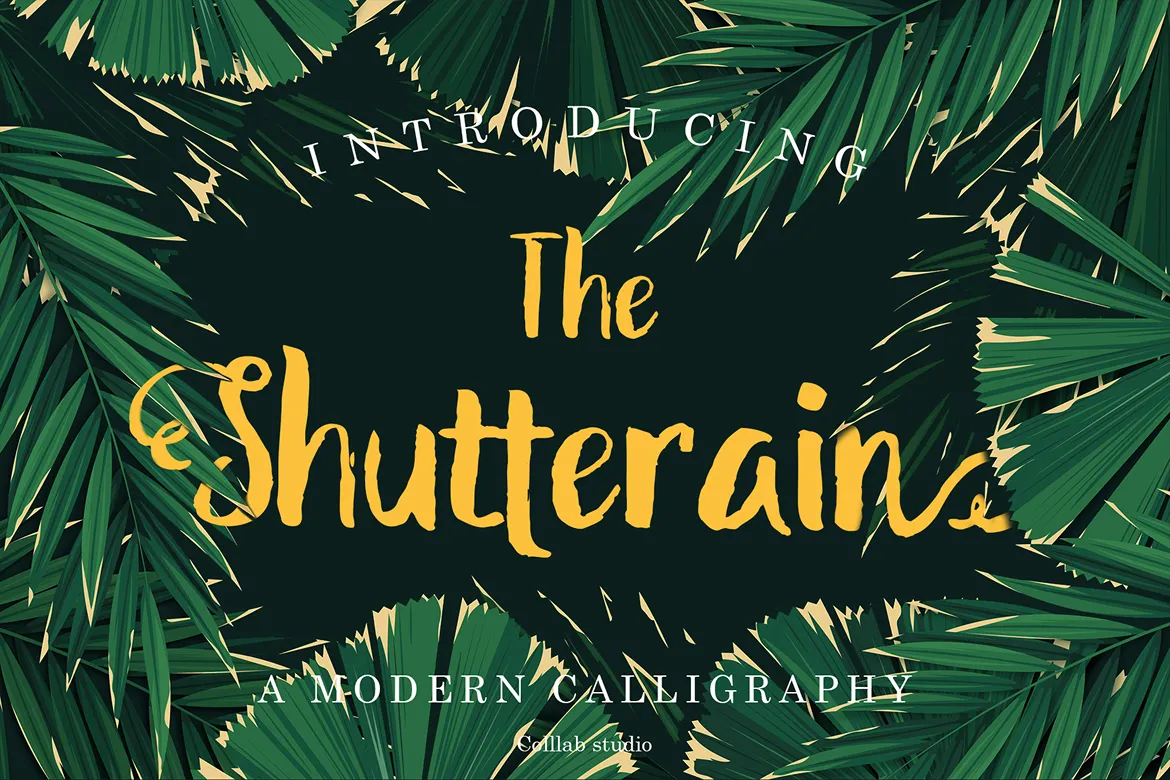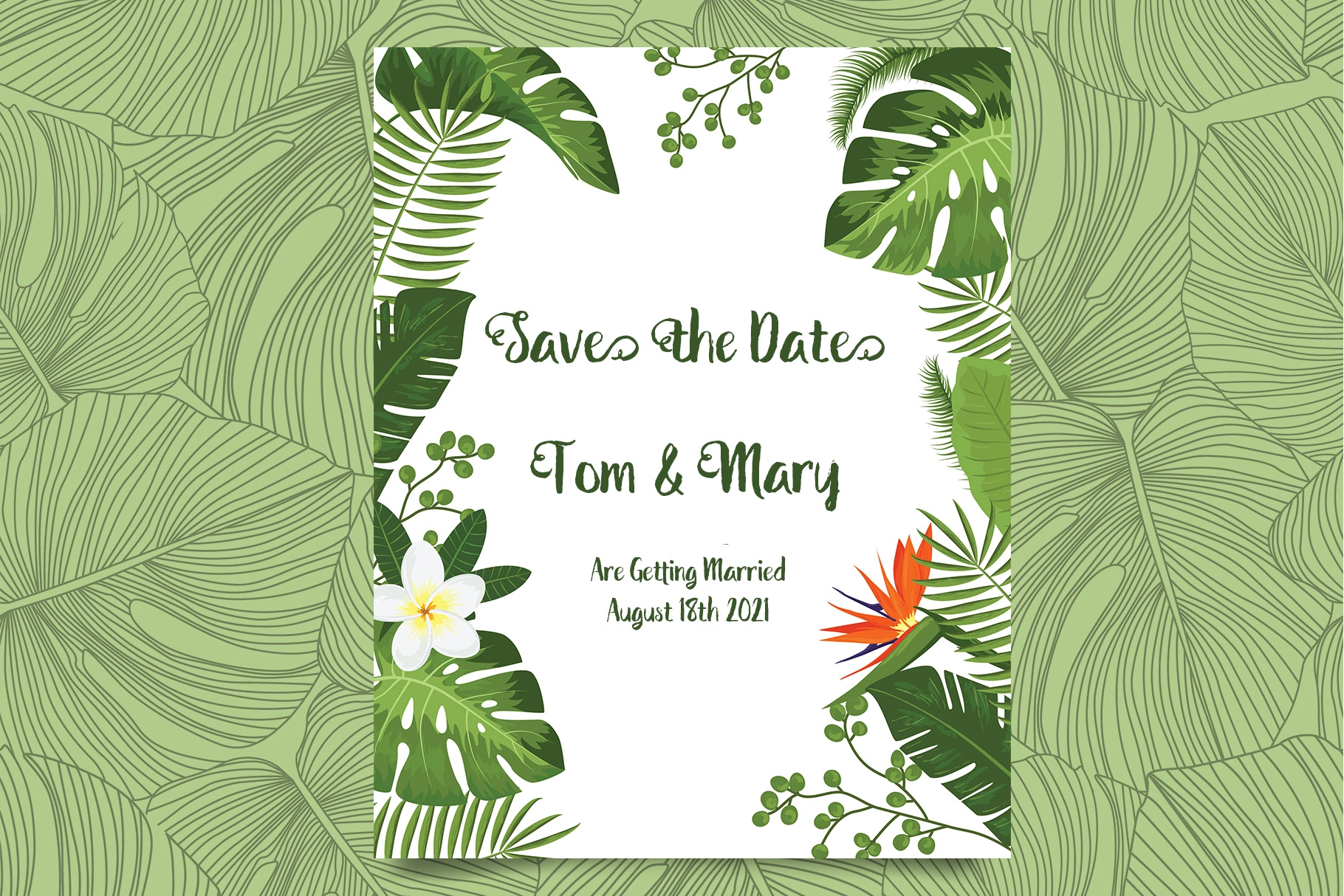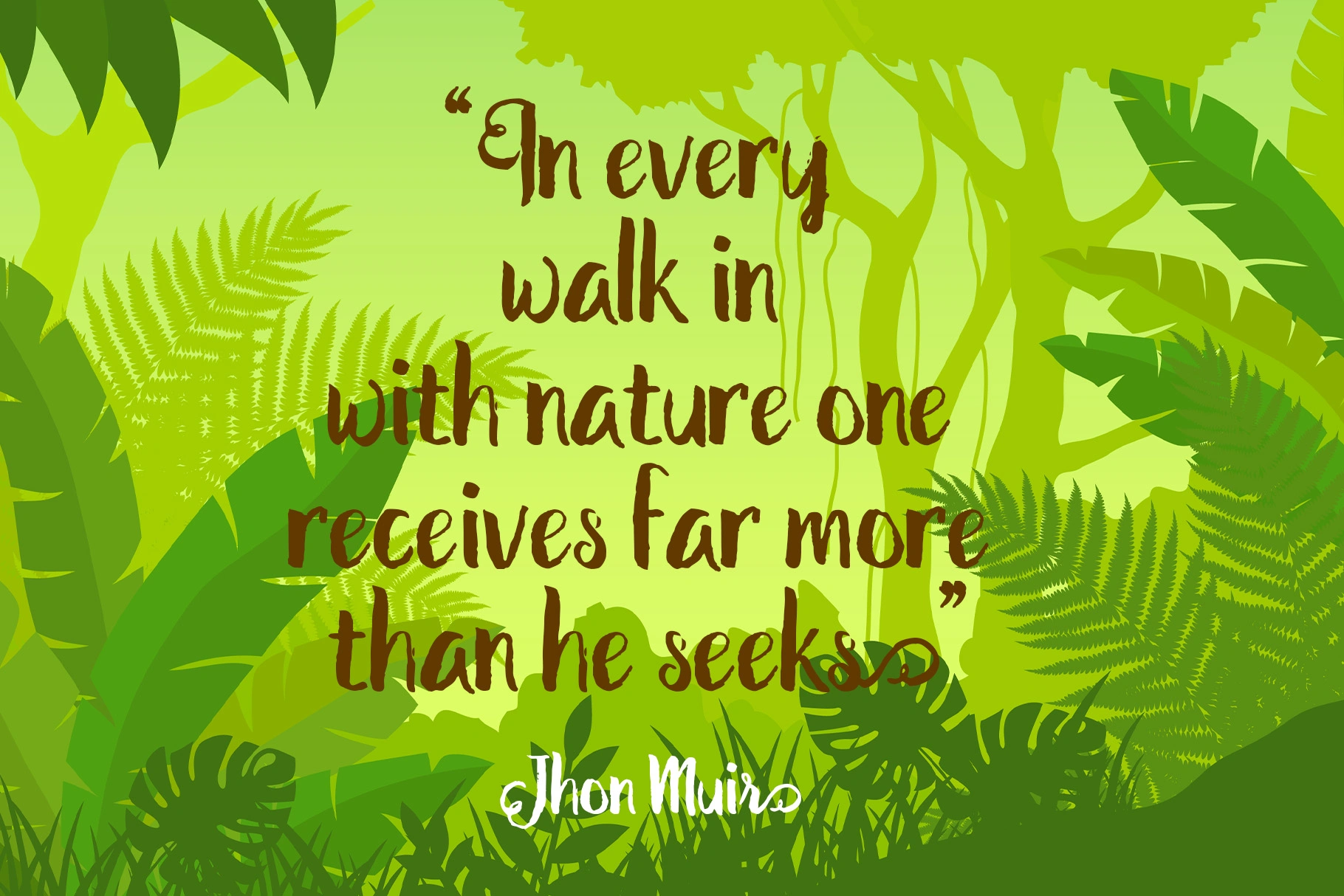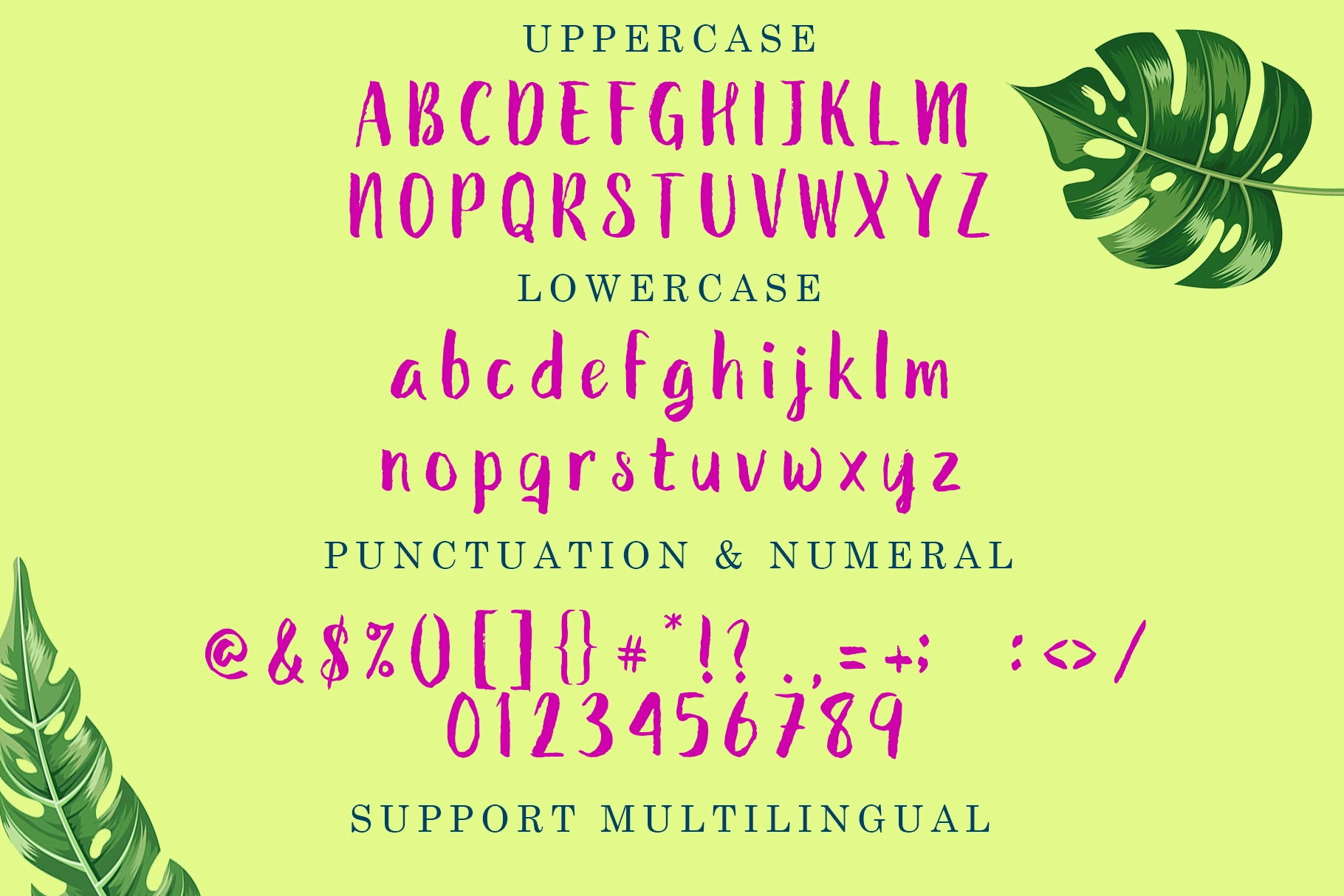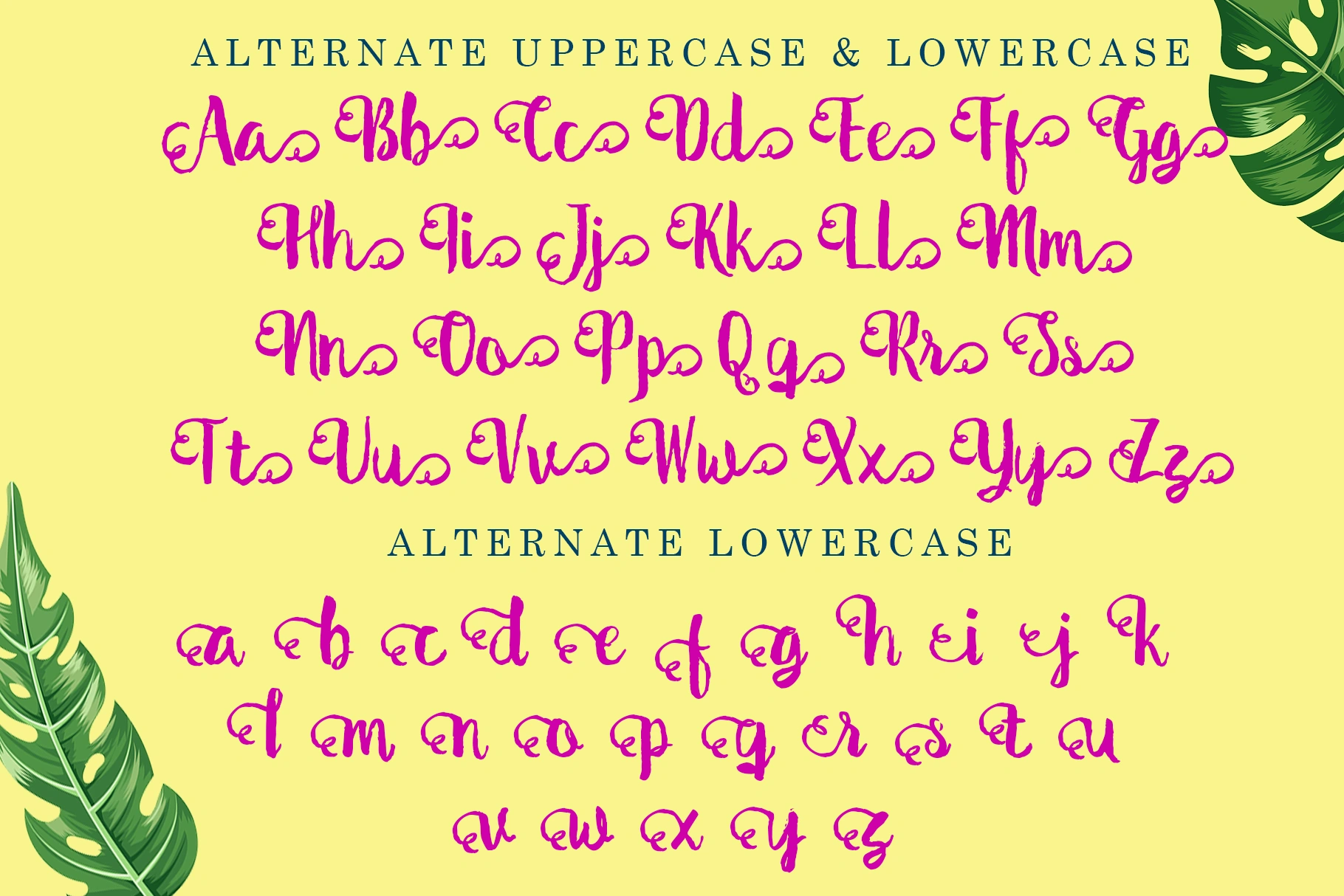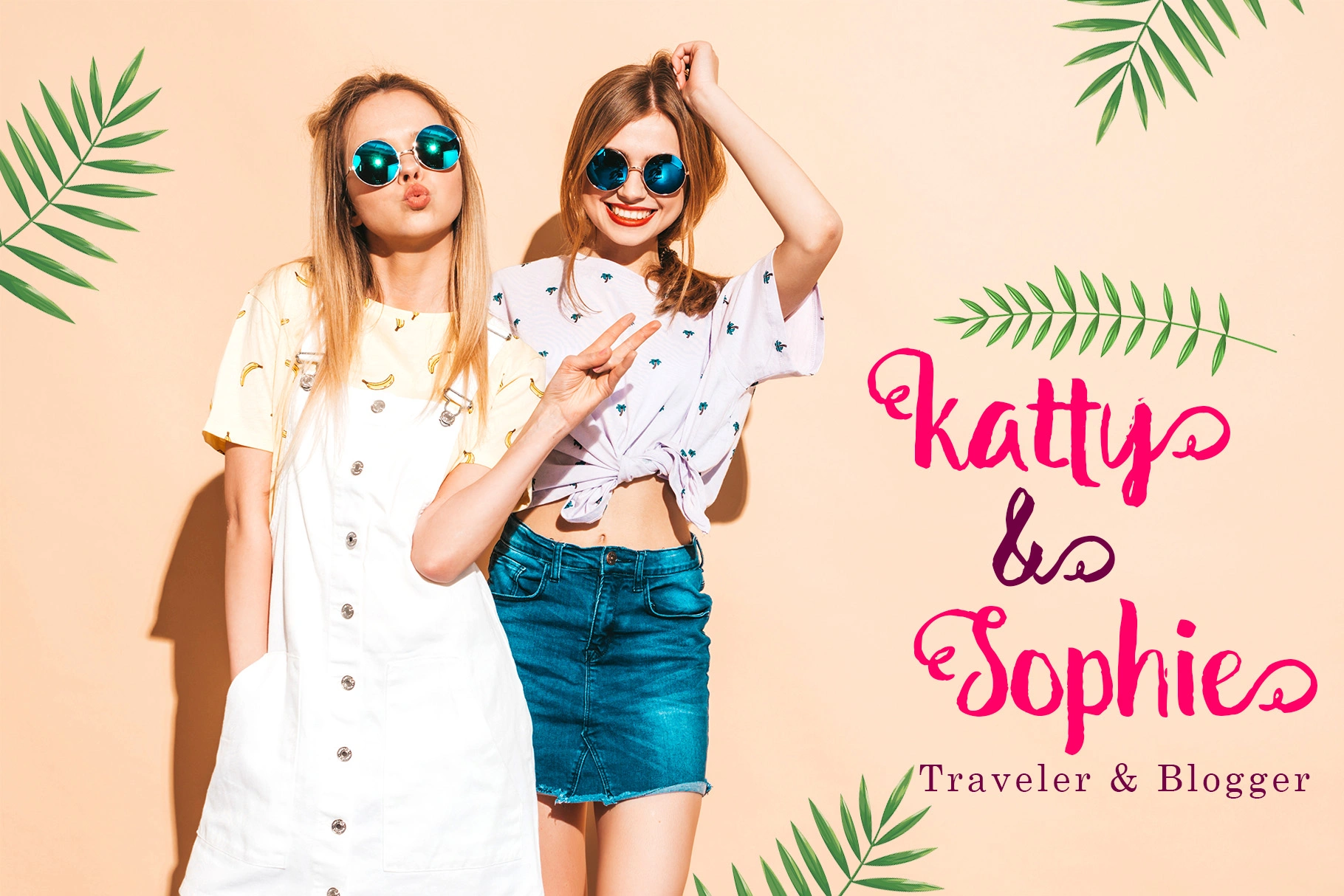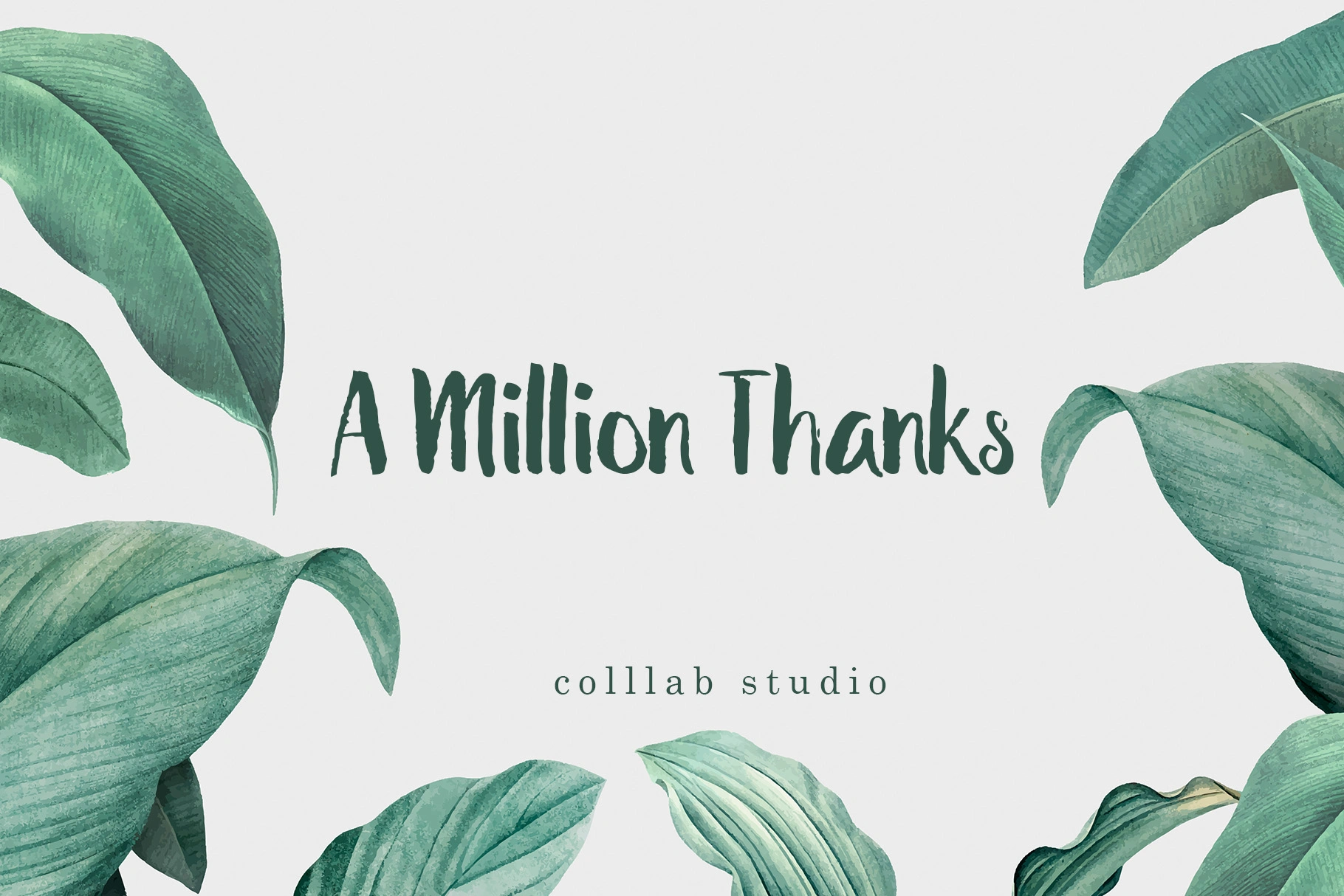
The Shutterain is a modern, cute handwritten font that blends decorative flair with a playful irregular baseline. Its trendy, feminine style makes it the perfect choice for designs that require charm, warmth, and personality. With smooth curves and stylish ligatures, this font creates a handcrafted feel that looks stunning across digital and print projects.
Whether you’re working on wedding invitations, thank you cards, quotes, greeting cards, logos, or business cards, The Shutterain adds a beautiful finishing touch that elevates your design.
Full uppercase + lowercase characters
Numbers & punctuation included
Stylish ligatures for natural flow
Multilingual support
Wedding invitations & stationery
Feminine logos & branding projects
Greeting cards & inspirational quotes
Thank you notes & personal signatures
Business cards & boutique packaging
The inspiration for The Shutterain comes from the effortless beauty of natural handwriting, enhanced with a modern feminine twist. Its decorative swashes and irregular flow give it an organic yet stylish personality, making it an ideal font for creative professionals, brides-to-be, and lifestyle brands seeking elegance with a touch of playfulness.
The Shutterain is a modern, cute handwritten font that blends decorative flair with a playful irregular baseline. Its trendy, feminine style makes it the perfect choice for designs that require charm, warmth, and personality. With smooth curves and stylish ligatures, this font creates a handcrafted feel that looks stunning across digital and print projects.
Whether you’re working on wedding invitations, thank you cards, quotes, greeting cards, logos, or business cards, The Shutterain adds a beautiful finishing touch that elevates your design.